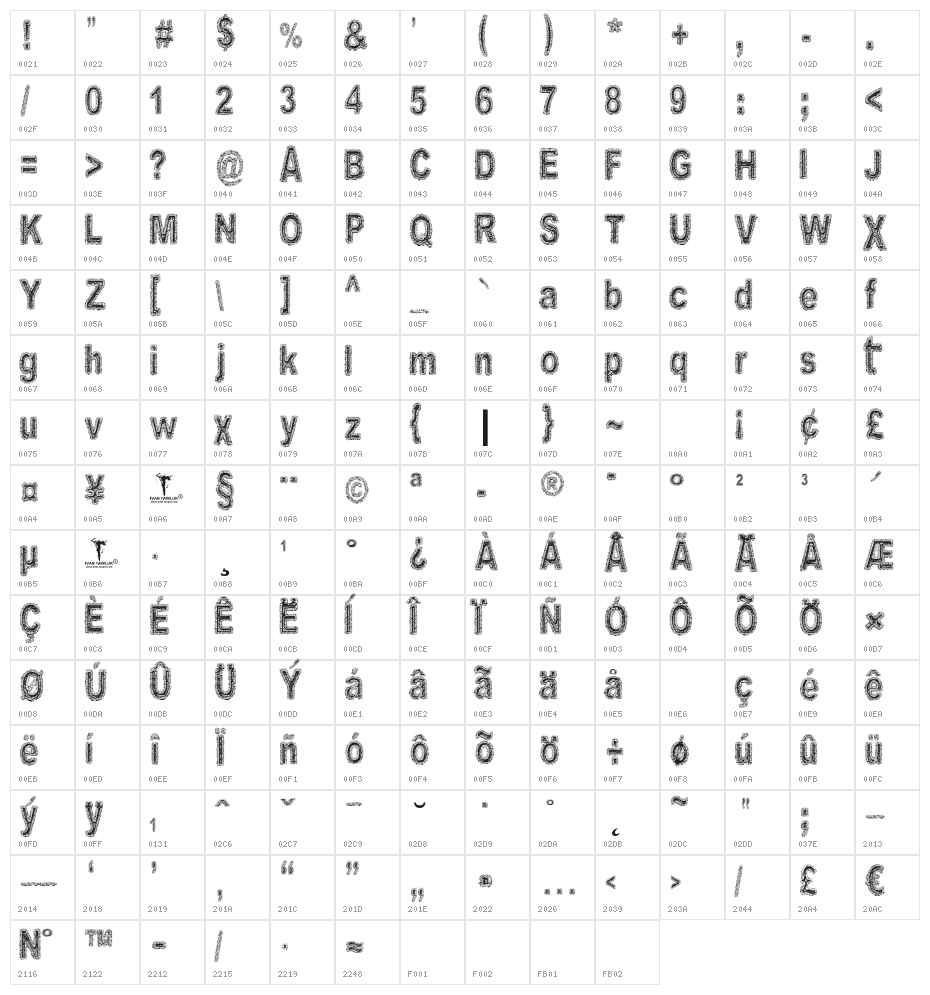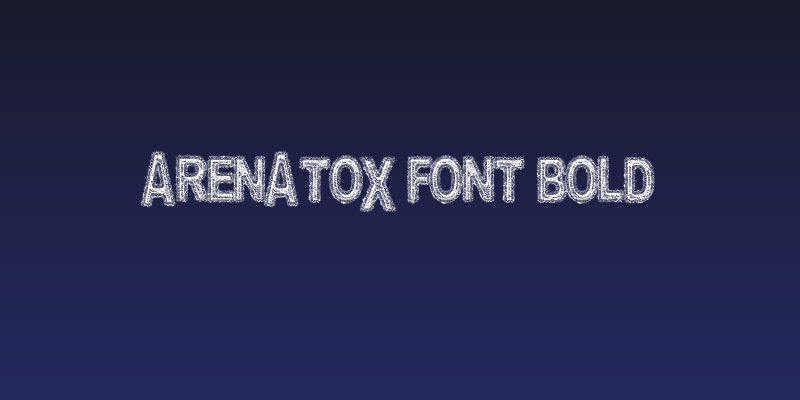
Arenatox font Bold Font
Arenatox font Bold Description
This font exhibits a bold and textured style, characterized by its rough, distressed appearance. The letters are uppercase and lowercase, with numerals and a variety of special characters. Each character is outlined with a thick, uneven stroke, giving it a gritty, hand-drawn feel. The texture adds a dynamic and edgy quality, making it stand out in any design. The font maintains a consistent weight throughout, with a slightly condensed width that enhances its boldness. The character spacing is normal, allowing for readability despite the textured effect. This font's unique style is perfect for projects that require a rugged, artistic touch.
Proposed ProjectsIdeal for posters, album covers, branding for edgy products, or any design needing a bold, artistic statement.